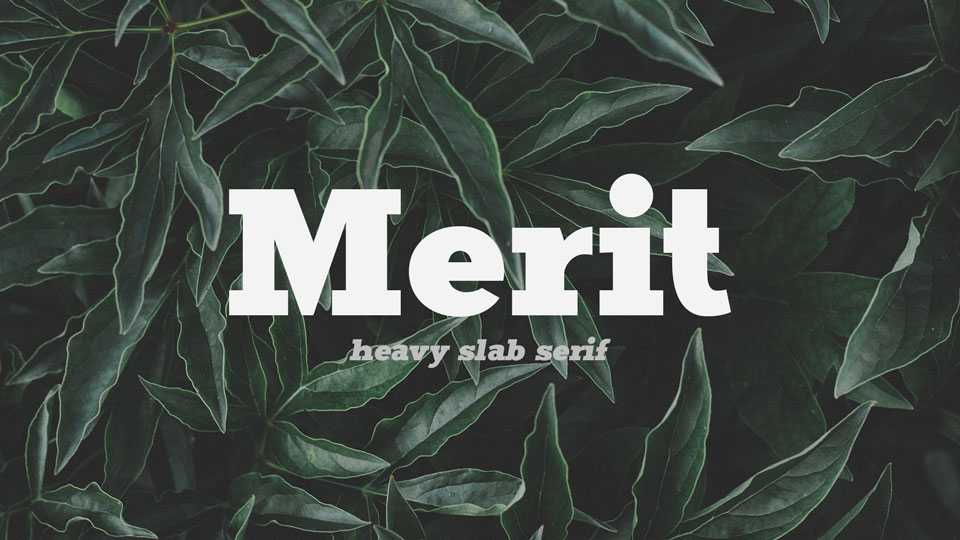
Download Merit font, a heavy slab serif that conveyed a friendliness while exhibiting a hardware kind of look. Merit works best for eye-catching headlines and posters, branding, banners and signage and other creative typographic projects.